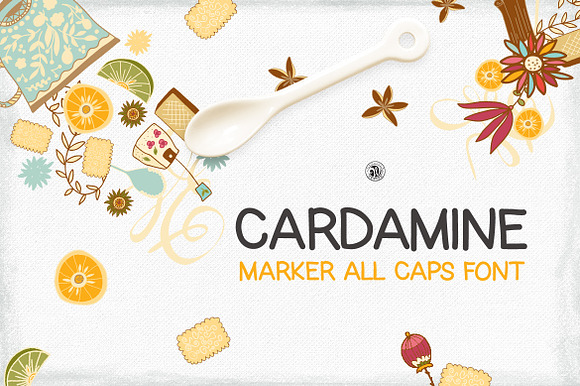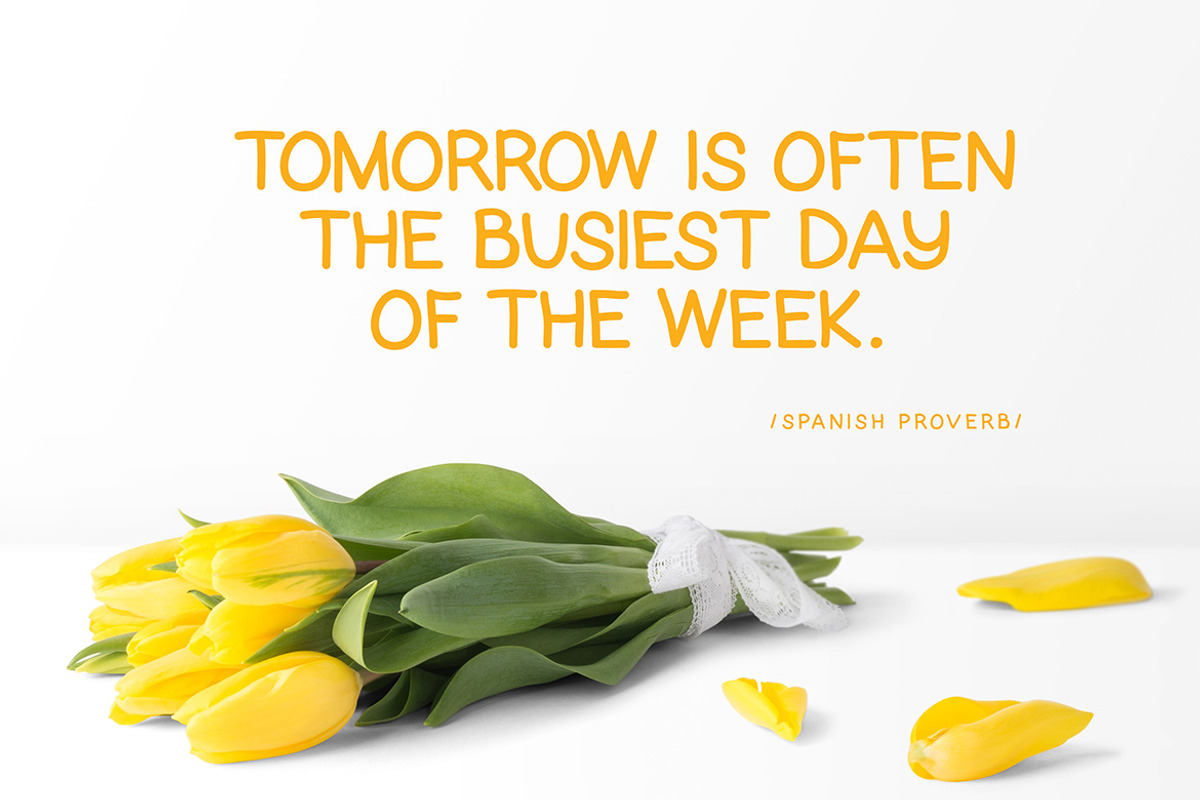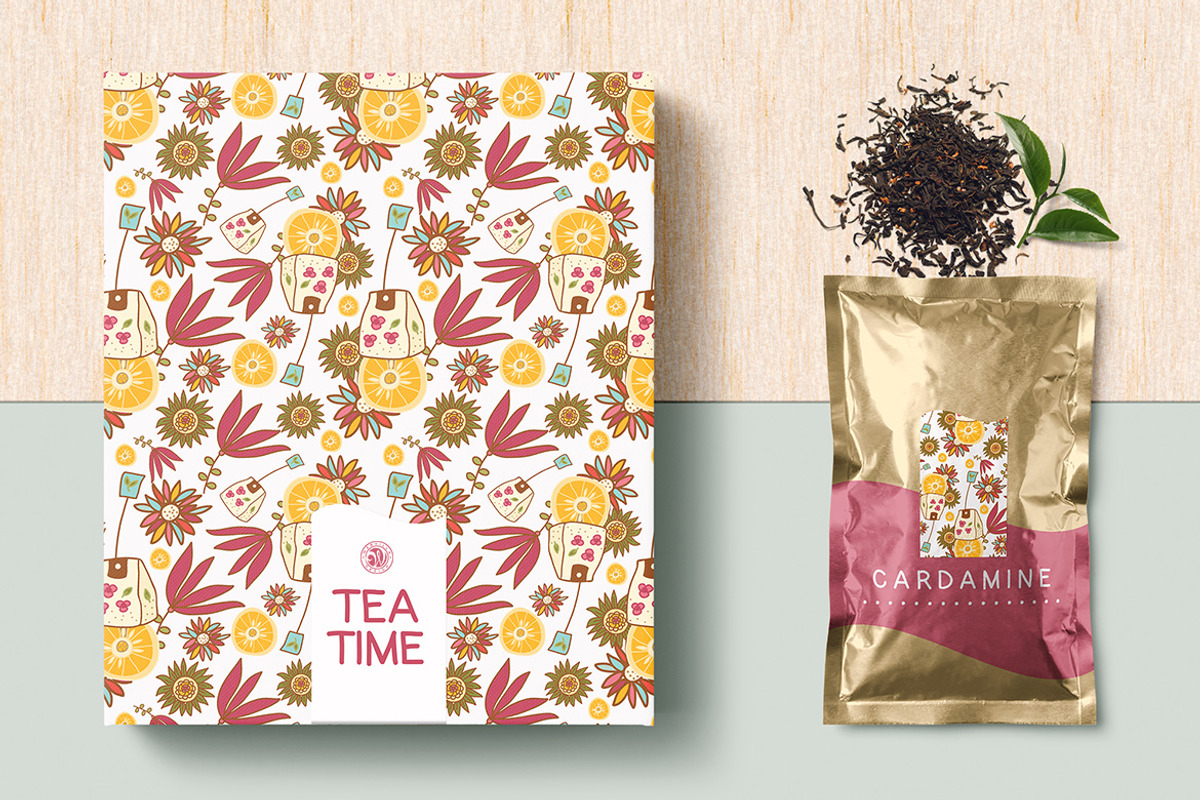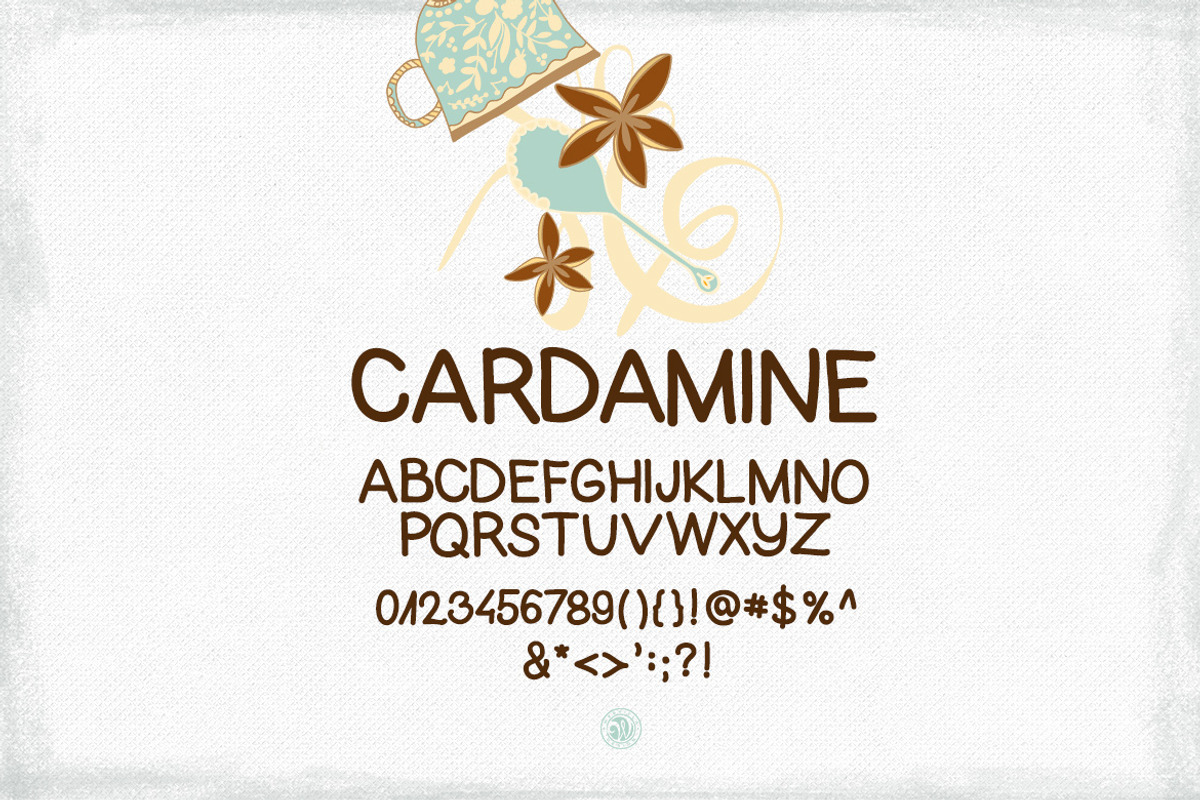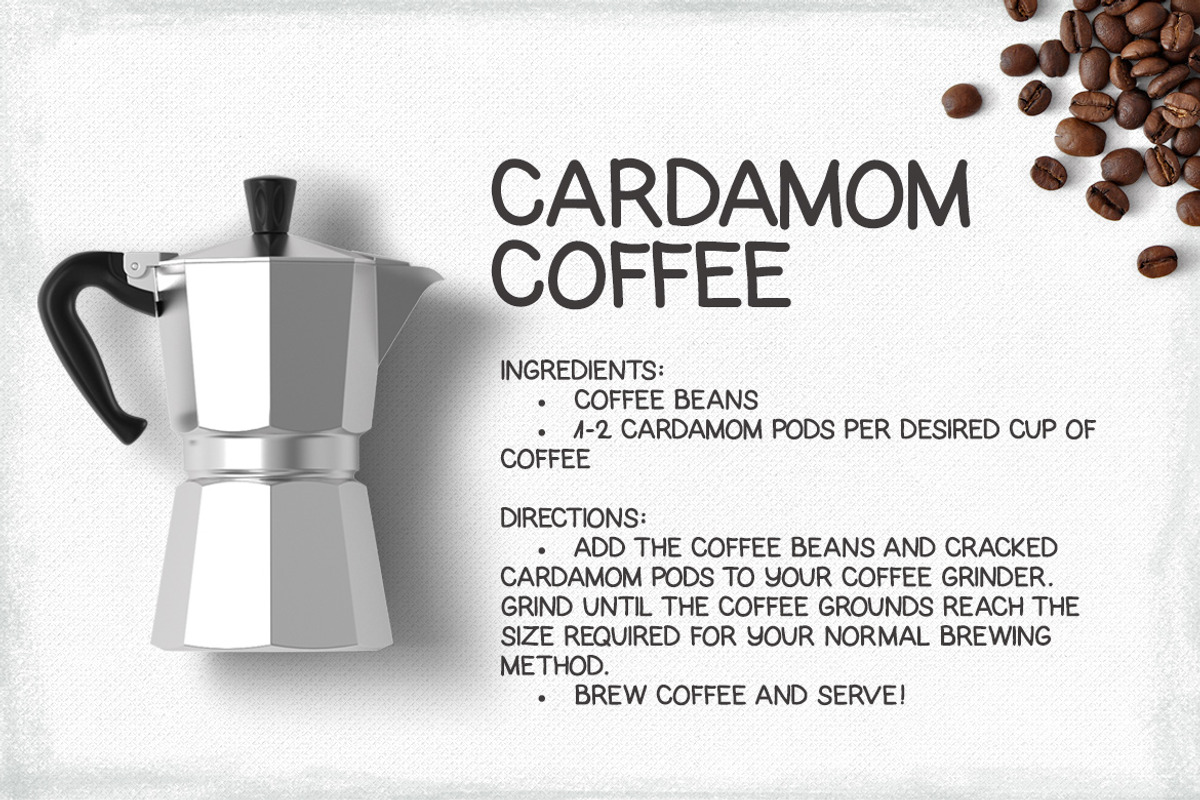
Cardamine Font
Cardamine marker font - hand lettering display font. Ideal for invitations, leading, book cover logos, branding, blogs, handmade craft items, scrap booking, printed paper items and more.
all caps font, numbers, punctuation
Cardamine Font by Webvilla Studio fits naturally into Branding, posters, packaging, typography.